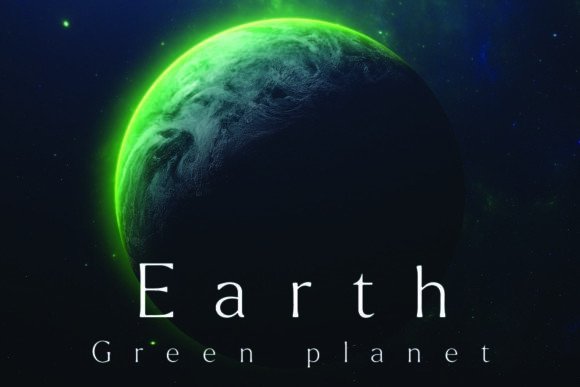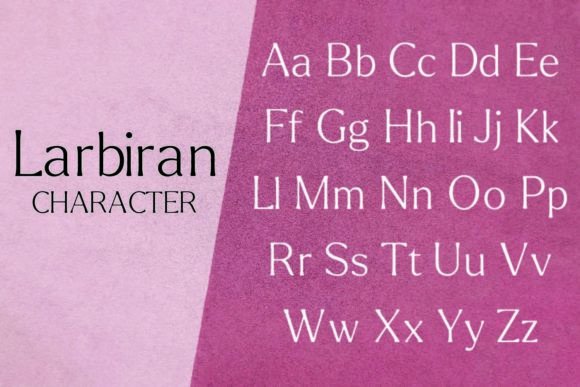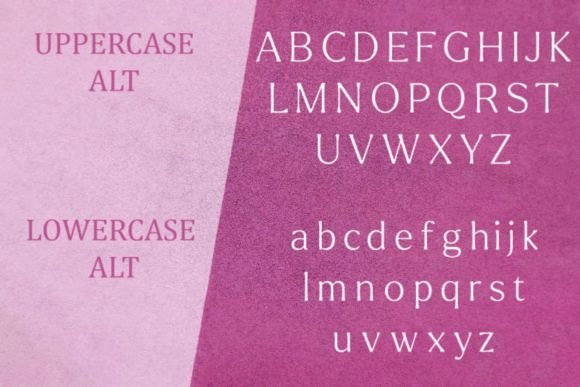
Introduction to Larbiran Thin Font
Larbiran Thin is a gorgeous and stylish display font.
Whatever the topic, this font will be a wonderful asset to your font library, as it has the potential to enhance any creation Add it to any of your designs, and enjoy the results.
Key Features of Larbiran Thin Font
Why Choose Larbiran Thin Font?
Larbiran Thin Font offers exceptional quality and versatility, making it a valuable addition to your design toolkit. Whether you’re creating for personal projects or commercial use, Larbiran Thin Font delivers professional results.